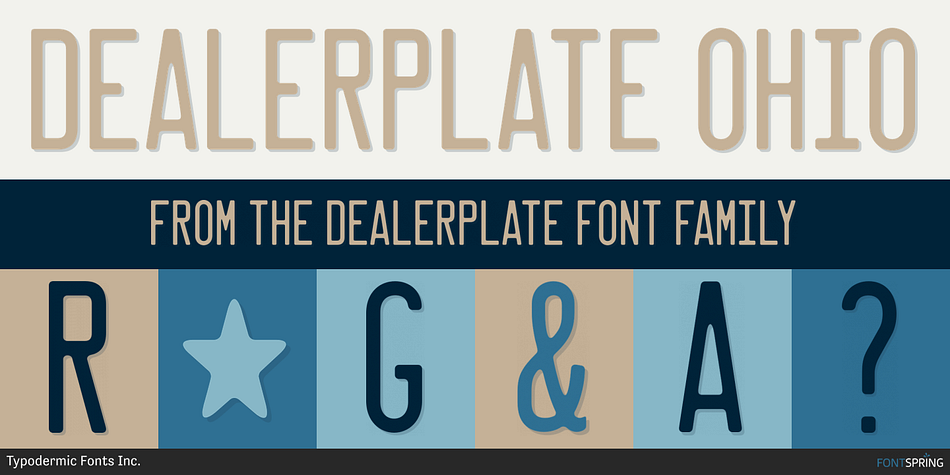
DEALERPLATE OHIO
Designed by Ray Larabie, Dealerplate is a display sans and display serif font family. This typeface has seventeen styles and was published by Typodermic Fonts Inc.
Rev up your design game with Dealerplate, the typeface that brings the license plate style to your work. This typeface features 17 embossed designs from states and provinces across the United States and Canada, ensuring your work is always on point with the latest in license plate style.
To truly capture the essence of the license plate look, be sure to turn off kerning in your design application. This will create a more authentic appearance, bringing the road to your design work.
Not only does Dealerplate capture the essence of license plates, but it also includes OpenType fractions, numeric ordinals, mathematical symbols, and monetary symbols, making it a versatile and powerful addition to any design project.
Don’t just settle for any license plate typeface, upgrade your design game with the stylish Dealerplate typeface today.
The Dealerplate family includes plates from:
California
Florida
Illinois
Maryland
Massachusetts
Michigan
Missouri
North Carolina/Utah/Alaska
New Jersey
New York
Ohio
Ontario
Pennsylvania
Quebec
Virginia
Washington
Wisconsin